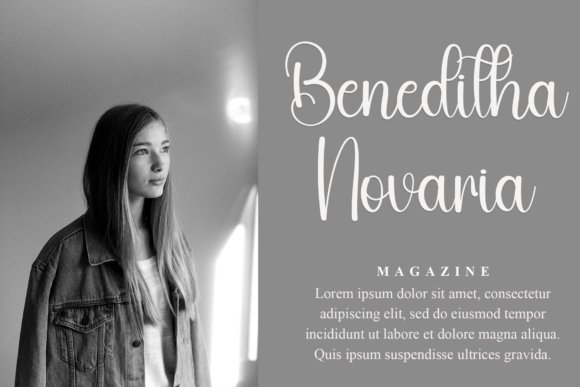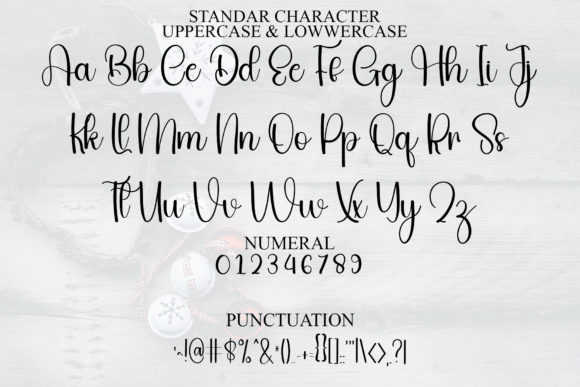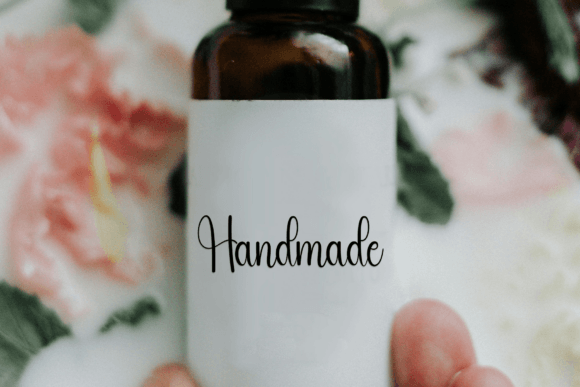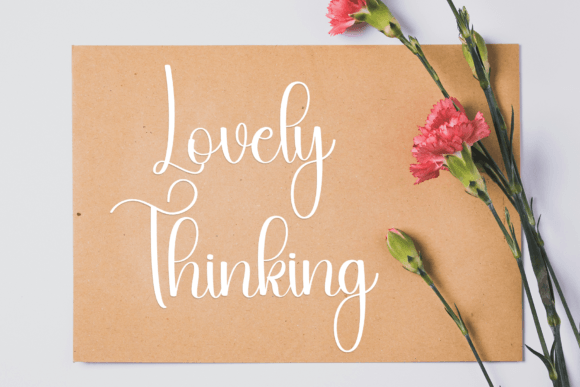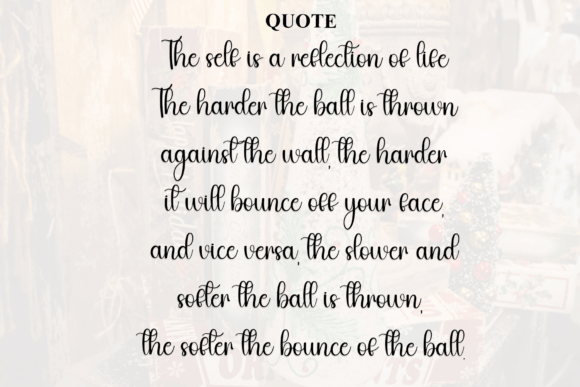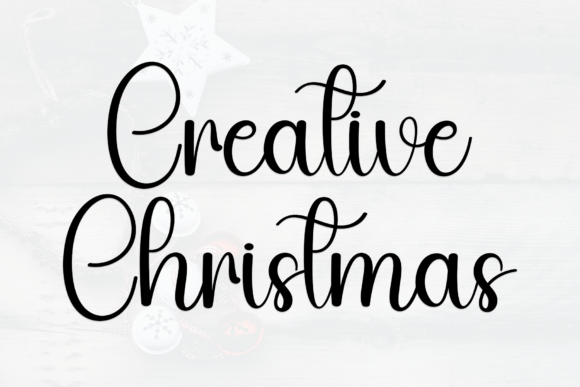
Diligent Christmas Font: A Masterpiece for Your Holiday Designs
Are you looking for a font that will make your Christmas designs stand out from the crowd? Look no further than the Diligent Christmas Font. This beautiful and attractive font is sure to capture the hearts of designers and crafters alike with its distinct and well-balanced letters. In this article, we’ll take a closer look at what makes Diligent Christmas Font a masterpiece and how you can use it to create spectacular designs.
The Characteristics of Diligent Christmas Font
Diligent Christmas Font is a unique and versatile font that boasts a range of characteristics that make it perfect for holiday designs. Here are some of its key features:
- Distinct and well-balanced letters: Each letter in the Diligent Christmas Font is carefully crafted to ensure that it is balanced and visually appealing. This attention to detail makes the font feel luxurious and high-end.
- Incredibly versatile style: Diligent Christmas Font can be used in a variety of design contexts, from festive holiday cards and invitations to decorations and packaging.
- Beautiful and attractive: The font’s elegant and refined aesthetic makes it perfect for designers who want to create sophisticated and eye-catching designs.
Why Designers and Crafters Love Diligent Christmas Font
Designers and crafters love Diligent Christmas Font for many reasons. Here are some of the benefits of using this font in your designs:
- Ease of use: Diligent Christmas Font is easy to read and works well in a variety of sizes, making it perfect for use in both digital and print designs.
- Flexibility: The font’s versatility means that it can be used in a range of design contexts, from formal to informal.
- Uniqueness: Diligent Christmas Font is a one-of-a-kind font that will help your designs stand out from the crowd.
How to Use Diligent Christmas Font in Your Designs
Now that we’ve covered the characteristics and benefits of Diligent Christmas Font, let’s take a look at how you can use it in your designs. Here are some ideas to get you started:
- Holiday cards and invitations: Use Diligent Christmas Font to create beautiful and elegant holiday cards and invitations that will impress your friends and family.
- Decorations and packaging: Add a touch of luxury to your holiday decorations and packaging with Diligent Christmas Font.
- Digital designs: Use Diligent Christmas Font in your digital designs, such as social media graphics and blog posts, to add a festive touch.
Tips for Getting the Most Out of Diligent Christmas Font
Here are some tips for getting the most out of Diligent Christmas Font:
- Experiment with different sizes and colors: Don’t be afraid to experiment with different sizes and colors to find the perfect combination for your design.
- Pair it with other fonts: Diligent Christmas Font pairs well with other fonts, so don’t be afraid to try pairing it with a sans-serif font for added contrast.
- Use it in combination with images: Diligent Christmas Font looks great in combination with images, so try using it to add text to your holiday photos and illustrations.
In conclusion, Diligent Christmas Font is a beautiful and attractive font that is sure to make your holiday designs stand out from the crowd. Its distinct and well-balanced letters, incredibly versatile style, and ease of use make it a masterpiece that designers and crafters will love. Whether you’re creating holiday cards and invitations, decorations and packaging, or digital designs, Diligent Christmas Font is the perfect choice. So why wait? Download Diligent Christmas Font today and start creating spectacular designs!